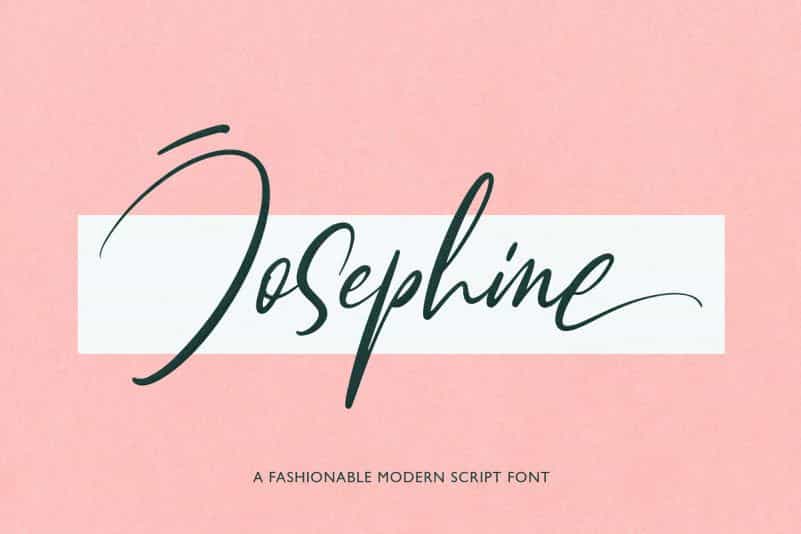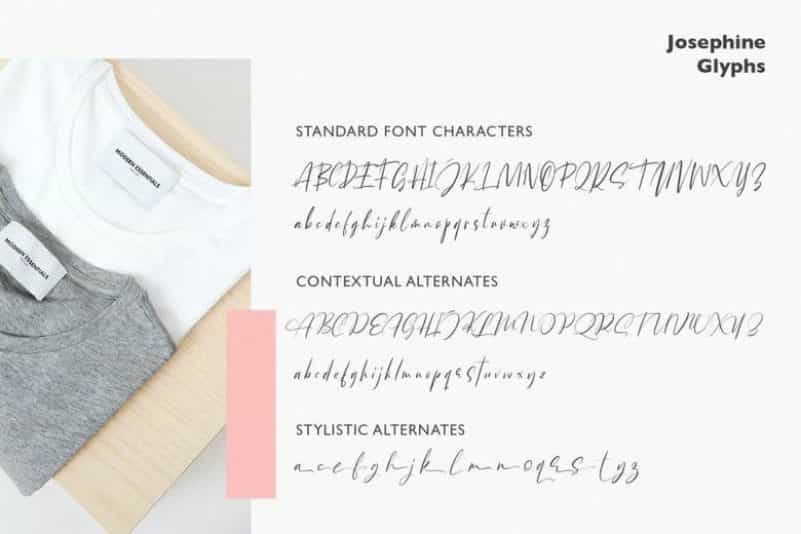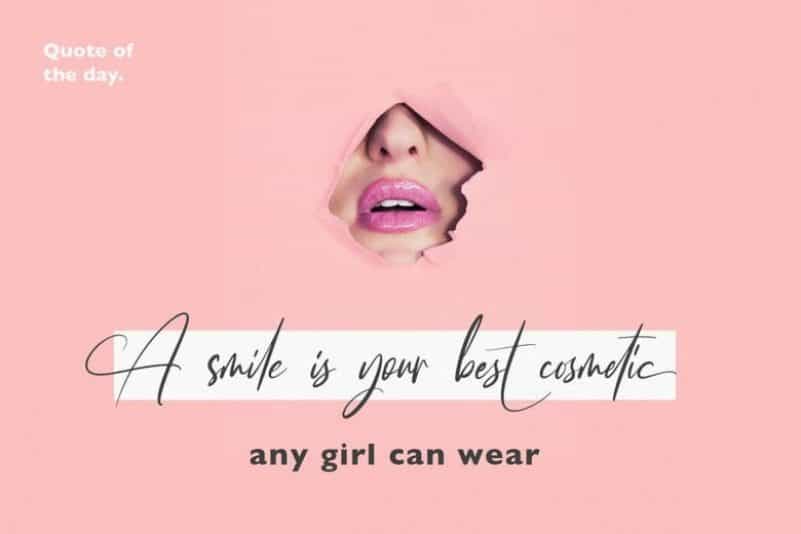
Discover Josephine Script Font, part of the Calligraphy Handwritten collection—a versatile and unique font perfect for adding a personal touch to your projects. Download it for free and enjoy crafting designs with style, from invitations to social media posts. This font is available exclusively for personal use, giving you the freedom to create without limits. Unlock your creativity with Josephine Script Font today!
Dear fans of fonts thanks for checking Josephine out Font. Whatever you create will Get an authentic handcrafted feel that Is very now. Josephine is a modern script typeface that every letter has unique characters all it’s own, In addition to featuring ligatures.